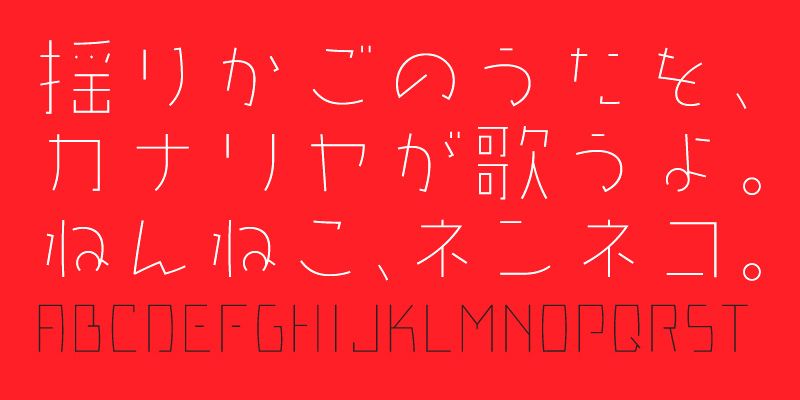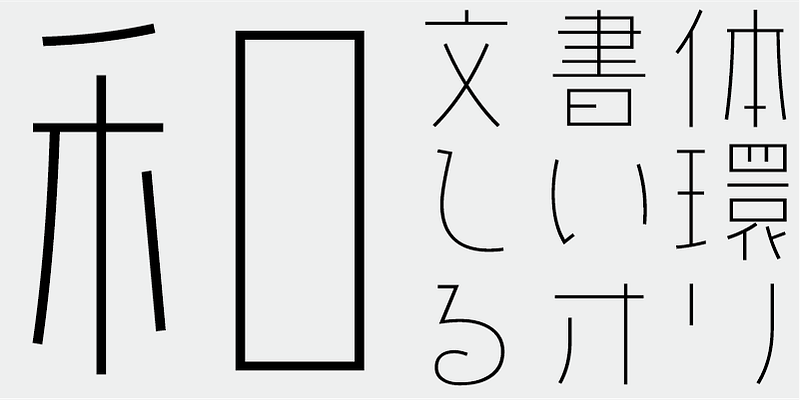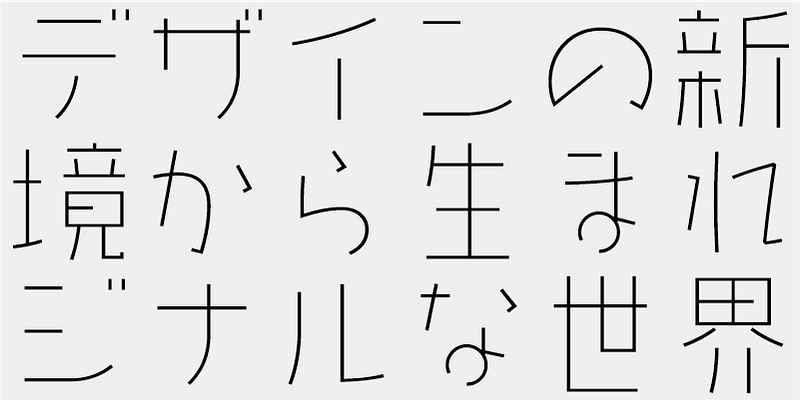
AB-karuta_el has very thin strokes. It is designed with many linear elements, and has a cute and Japanese taste. A typeface with a relaxed and informal style. Enjoy yourself composing text that effectively makes use of the wider spaces.